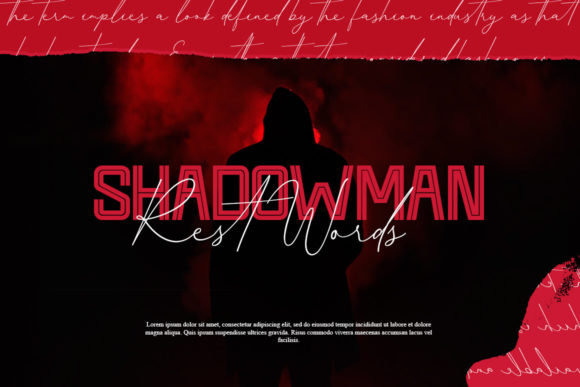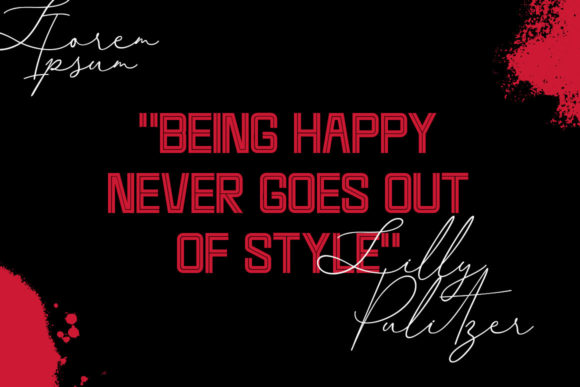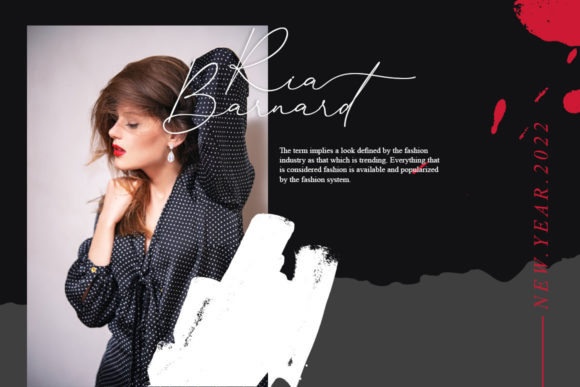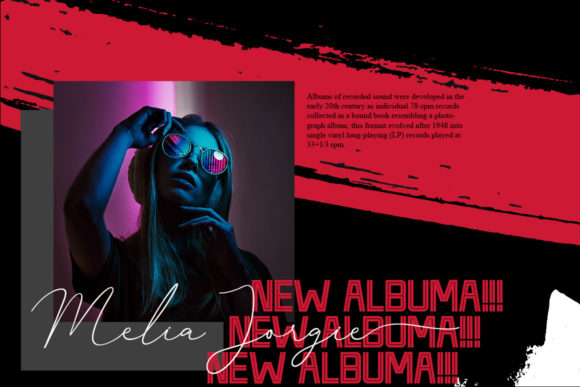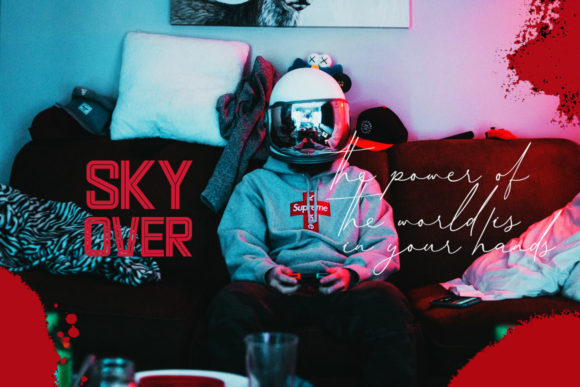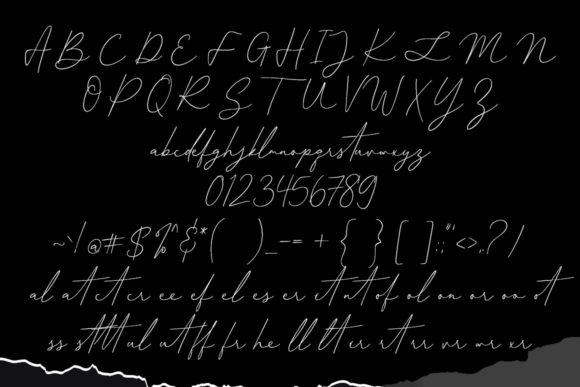
Unleash Your Creativity with the Unique Benatia Font
As designers, we’ve all been there – staring at a blank canvas, searching for the perfect font to bring our vision to life. The moment of epiphany hits when you stumble upon the perfect combination of style and sophistication. For many of us, that moment came with the discovery of the Benatia Font – a classy and contemporary duo font that effortlessly blends display and script styles.
Benatia Font is more than just a font; it’s an artistic statement piece that adds a touch of elegance to any design. Its uniquely shaped letters are imposing and bold, making it an ideal choice for projects that require a distinct touch. Whether you’re working on a branding project, creating a wedding invitation, or designing a marketing campaign, Benatia Font is sure to leave a lasting impression.
Benatia Font Key Features
- Unique Characteristics: The font features a unique blend of modern and traditional design elements, with intricate details and ornate flourishes, making it ideal for luxury and high-end branding.
- Kerning and Ligatures: The font includes advanced kerning and ligature tables, ensuring smooth and even text flow, and enhancing the overall readability and aesthetic appeal of the font.
Benatia Font Review
As a designer, I was excited to dive into the Benatia font and see what it has to offer. Here’s my honest review.
- Unique Character: The Benatia font has a distinct, elegant feel that sets it apart from more common fonts.
- High-Quality Vectors: The font’s vectors are crisp and well-crafted, making it a pleasure to work with.
- Good Readability: Benatia is easy to read, even at smaller font sizes, which is a must-have for any font.
- Limited Font Sizes: The font doesn’t have as many font sizes as I’d like, which can make it tricky to find the perfect fit for certain projects.
- No Cyrillic Support: The font only includes Latin characters, which limits its use in certain contexts.
- Not Ideal for Body Text: While Benatia is great for headlines and titles, it’s not the best choice for body text due to its elegance and formal feel.
The Benatia font is a solid choice for designers looking for a unique, elegant font to add some flair to their projects. While it has some limitations, its strengths make it a worthwhile addition to any font library.
Tips for Getting the Most Out of Benatia Font
Here are some tips to help you get the most out of Benatia Font:
– Use it for headings and titles to add a touch of elegance and sophistication.
– Pair it with a simple background to let the font be the focal point.
– Experiment with different font sizes and styles to create visual interest.
Benatia Font is commonly used for:
– Luxury product packaging and labels
– High-end marketing materials and brochures